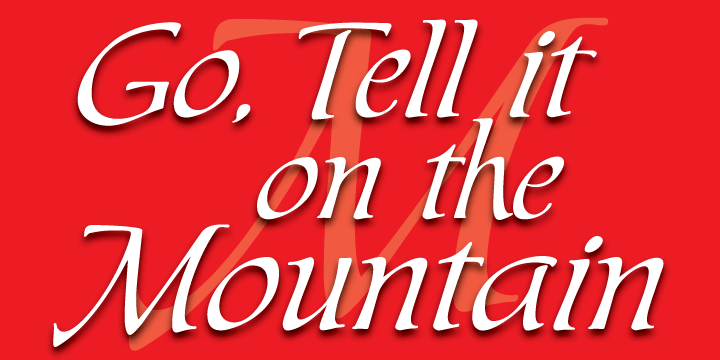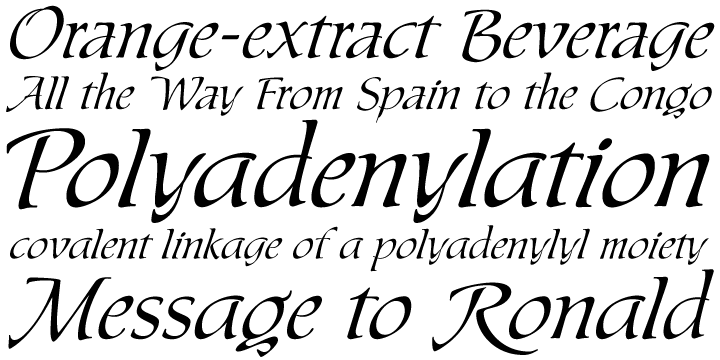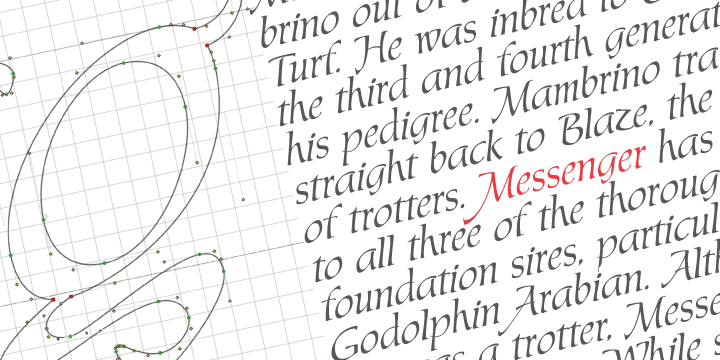
Messenger Pro is a script font published by Canada Type.
Messenger is a redux of two mid-1970s Markus Low designs: Markus Roman, an upright calligraphic face, and Ingrid, a popular typositor-era script. Through the original film faces were a couple of years apart and carried different names, they essentially had the same kind of Roman/Italic relationship two members of the same typeface family would have. The forms of both faces were reworked and updated to fit in the Ingrid mold, which is the truer-to-calligraphy one.
The Messenger package is comprised of two interchangeable fonts that support Western, Eastern and Central European languages, as well as Baltic, Celtic/Welsh and Esperanto. Messenger Pro is a single OpenType font that contains the characters of both Messenger and Messenger Alt, linked by programmed features for stylistic alternates, automatic f-ligatures and class-based kerning.